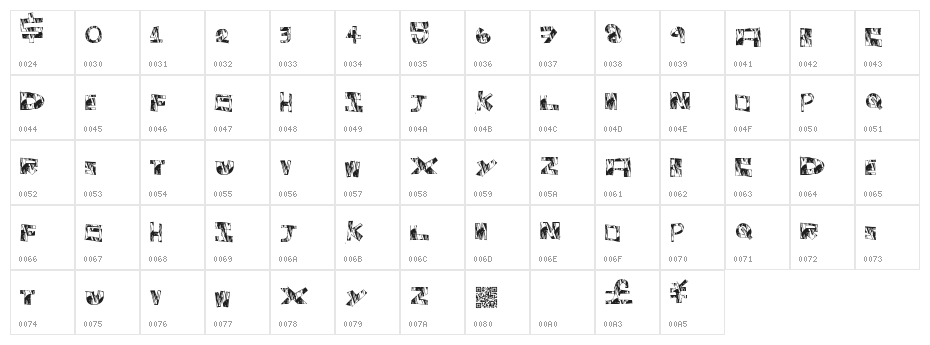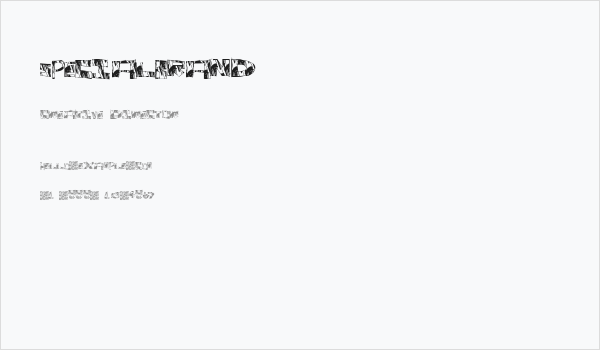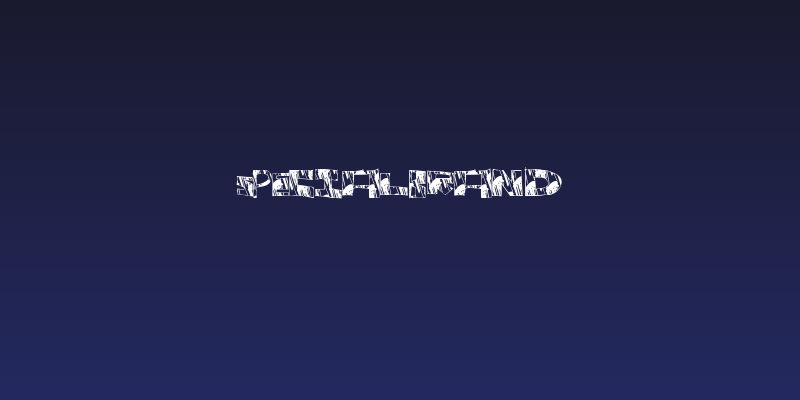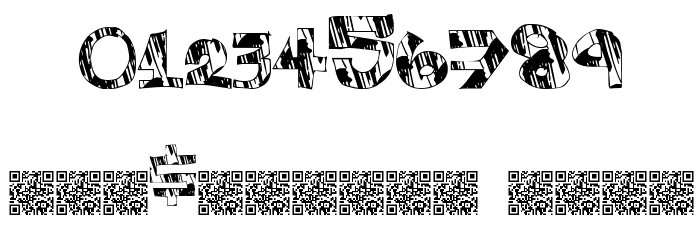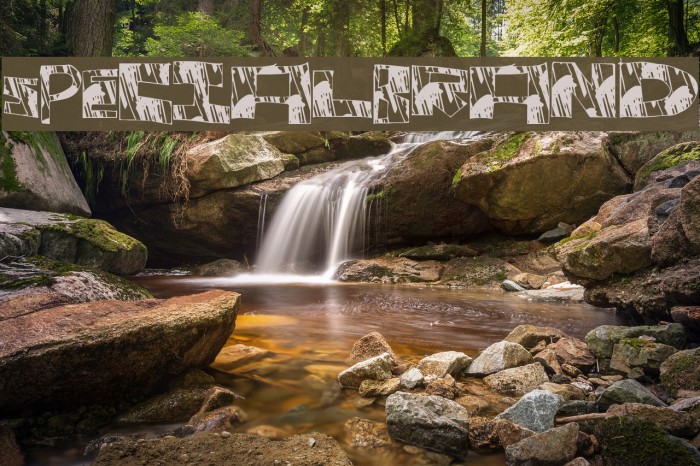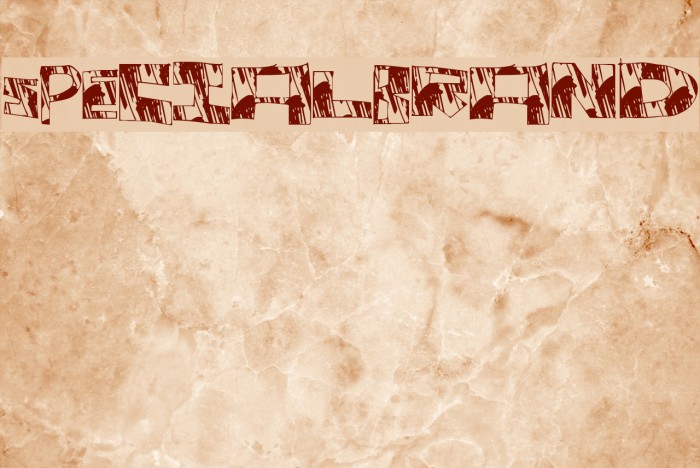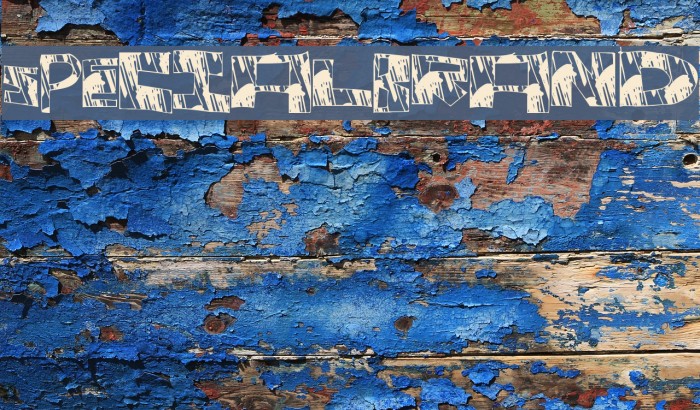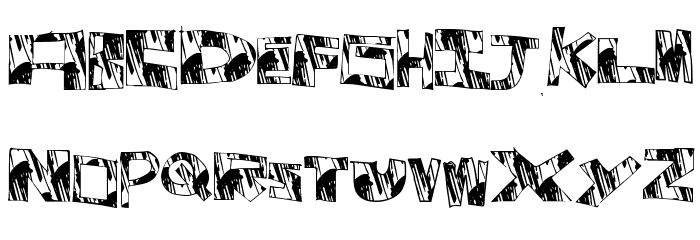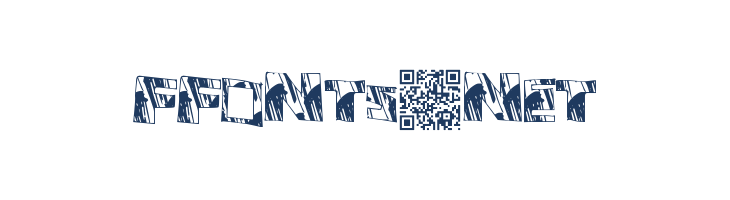
SpecialBrand Font
SpecialBrand Description
This font features a bold, decorative style with a unique pattern filling each character. The letters are blocky and angular, giving them a strong and impactful appearance. The pattern within each letter consists of irregular, sketch-like lines that create a textured effect, adding depth and visual interest. The uppercase and lowercase letters maintain a consistent style, ensuring cohesion across different text elements. Numbers and special characters are also designed with the same distinctive pattern, making this font suitable for creative and artistic projects.
| Proposed Projects | Ideal for branding, posters, album covers, and any project requiring a bold, artistic touch. |